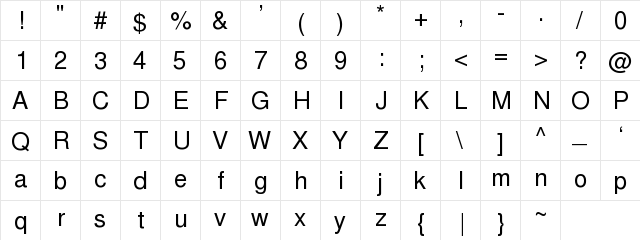
Gargi-1.3 1.3
| Designer | Asmita S. Khobragade, Dr. Nagarjuna. |
Design Context for Gargi-1.3 Typeface
Gargi-1.3 takes a measured approach to typography — its balanced proportions and neutral character make it a reliable workhorse for both digital and print work.